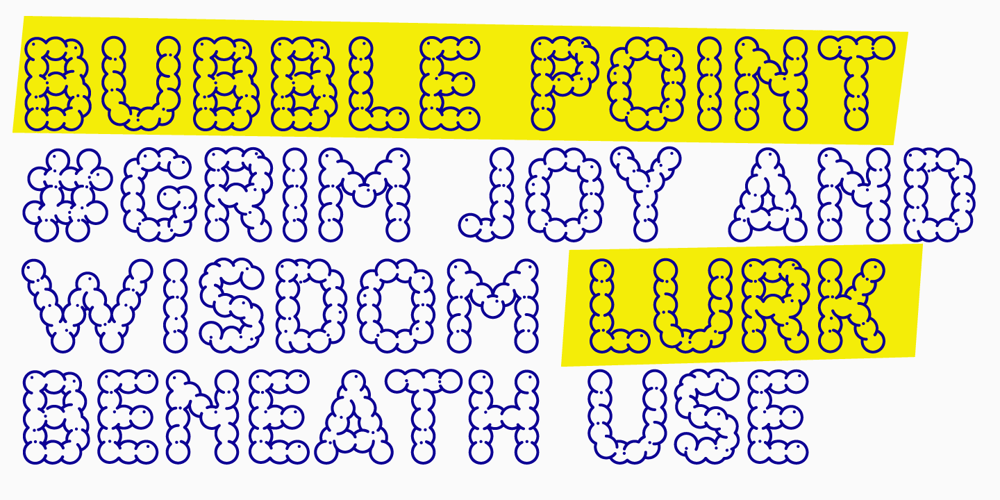
Bubble Point Font Family was designed by Ozalp Furkan Eroz and published by Howcolour. Bubble Point contains 1 styles and family package options. Bubble point is a form and shape focussed display font where hand made qualities mix with ballpoint pen and outlines of merged bubbles. If you would like to design a project with a unique look and feel, Bubble Point will help you to project a grim fun and wisdom lurk beneath the meaning.